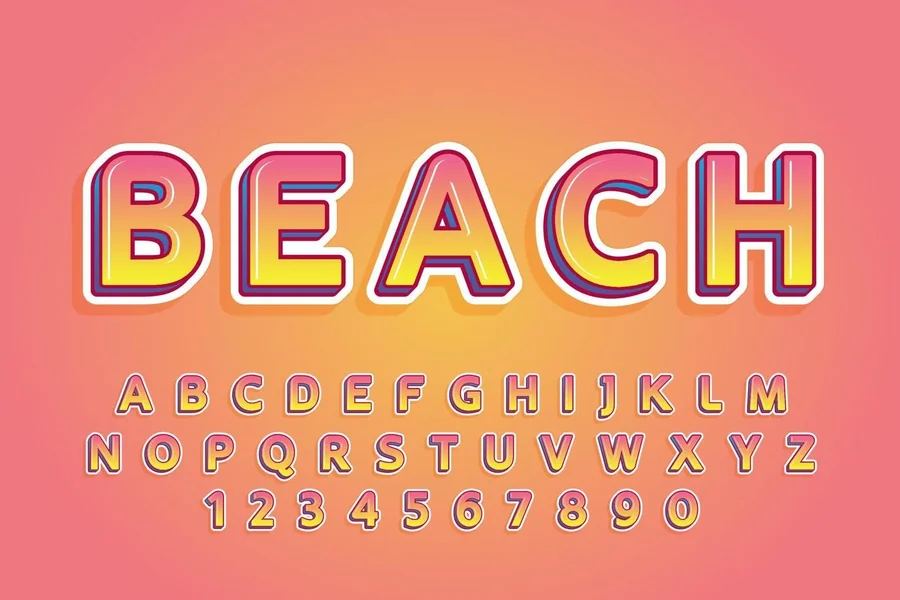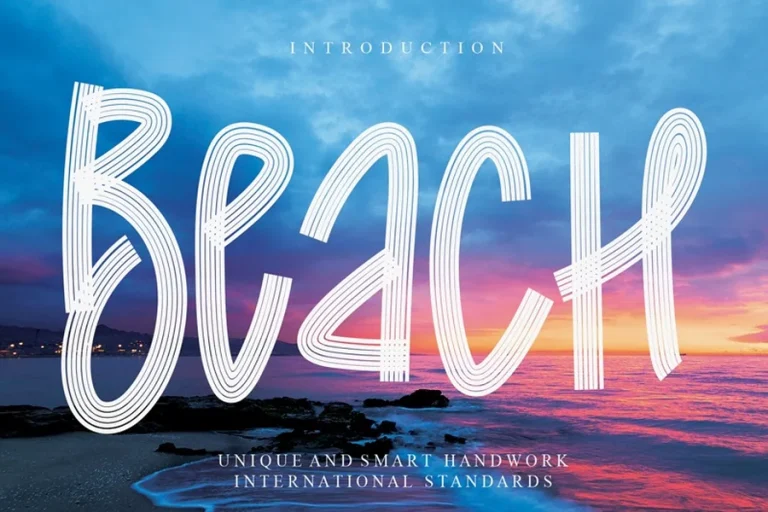
Beachy Fonts That Bring Coastal Style To Your Designs
Beachy Fonts
Beachy fonts have the serenity and euphoria of life at sea. They are easy-going warm and imaginative. These fonts usually give one the impression of sand waves sunshine and languid summer days. Beachy Fonts are designed by designers to produce welcoming visuals, which are open and fresh. They are effective with travel brands cafes surf shops beach weddings and lifestyle blogs.
Beachy Fonts are characterized by gentle contours and mischievous movement. Others appear handwritten whilst others are bold and artistic. You know what the secret is they are easygoing. When one looks at Beachy Fonts they tend to be relaxed joyful and motivated. That is why they are still used in different spheres of creativity.
Designers adore the fact that Beachy Fonts add emotion to a design. They are not rigid or businesslike. Rather they are human and natural. This suits them well with brands that desire to be friendly and entertaining.
Why Beachy Fonts Are Popular in Design
Beachy Fonts are emotionally related. They make people remember about holidays freedom and simple joy. Such emotional connection makes them very strong in visual storytelling. When a viewer looks at the Beachy Fonts, they are likely to think about blue skies and hot sand.
The other reason why Beachy Fonts is popular is its versatility. They appear effectively on posters logos and even on product packages. A surf brand will be bold with fonts on the beach whereas a spa will use soft flowing fonts. The two still fit into the theme of Beachy Fonts.
The fact that Beachy Fonts are unique without sounding obnoxious is also appreciated by designers. They are not obnoxious and are attention-seeking. This ratio assists brands to convey warmth and trust. This is why Beachy Fonts is still one of the preferred fonts every year.
Where to Use Beachy Fonts Effectively
When the message is casual or happy, Beachy Fonts are the best. They fit well with travel blogging beach resorts summer events and beach cafes. they are also compatible with handmade and eco brands.
Beachy Fonts come in handy with social media content. Instagram stories and reels are of a friendly appearance that draws attention. Beachy Fonts can also be applied in invitations to beach weddings or tropical partying.
Lifestyle or wellness websites tend to use Beachy Fonts in order to produce visual representations that are relaxing. The most basic headlines may become a touch warmer in the appropriate font. The point is always to correspond to the mood of the message.
Beachy Fonts
Popular Styles Found in Beachy Fonts
There are numerous styles of Beachy Fonts. There are those that appear to be handwritten and playful. Others feel bold and retro. There are those with a soft curve and those with brush style. Each style brings out a certain feeling. Beachy Fonts are handwritten and personal and artistic. They are excellent when it comes to blogs and personal brands. Beach fonts that are script style add grace and motion. They are usually dreamy and romantic.
Bold beach fonts are ideal in advertisements and logos. They are very visible and self-assured. Retro beach fonts make people think about the vintage surfer culture. These genres can be quite playful and retro.
How to Choose the Right Beachy Fonts
The selection of the appropriate Beachy Fonts will be based on your intent. In case you are working on a playful project then use rounded or handwritten type. In case it is classy use soft font scripts. Thicker strokes should be used in bold branding.
Always remember about readability. Beachy Fonts may be beautiful, but not long-text. Test the font appearance in various sizes. Ensure that it is natural and easy to read.
Color also matters. Beachy fonts usually are very attractive with soft blues sandy colors or warm oranges. The beach is made at the right color even better.
Final Thought
Beachy Fonts are adding a sense of creativity and serenity to a design. They assist in narrating some stories that are easy to listen to. The fonts produce a powerful emotional connection with the viewer whether you are creating a brand or just having fun with the fonts. Simple text can be transformed into a visual getaway with the right selection that will make you spend a day at the beach.
Are Beachy Fonts good for logos?
Yes Beachy Fonts can work well for logos especially for beach related or casual brands.
Can Beachy Fonts be used for professional designs?
Yes when chosen carefully Beachy Fonts can look clean and professional while still feeling friendly.
Do Beachy Fonts work for social media?
Yes they are great for social posts because they feel fun and eye catching.
Are Beachy Fonts good for print designs?
Yes they work well for posters flyers packaging and invitations when used correctly.